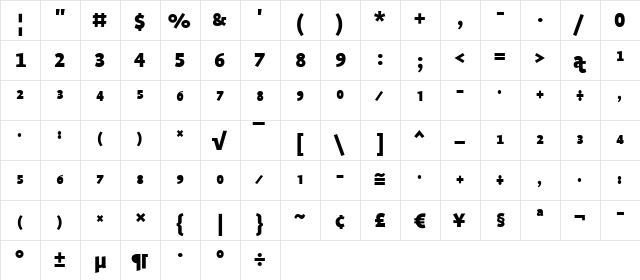
ProfileNO Black
Design Context for ProfileNO Typeface
ProfileNO offers clean, dependable letterforms without strong stylistic allegiance, making it a practical choice for designers who need flexibility.